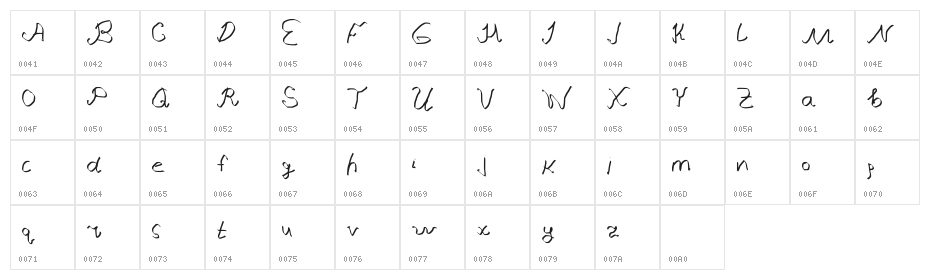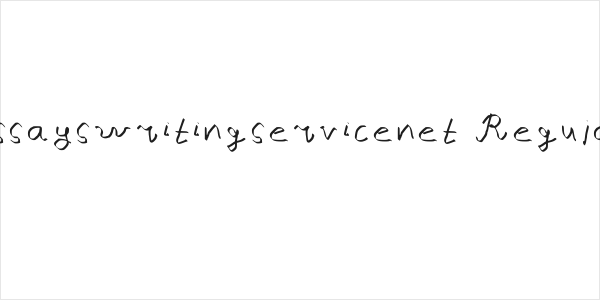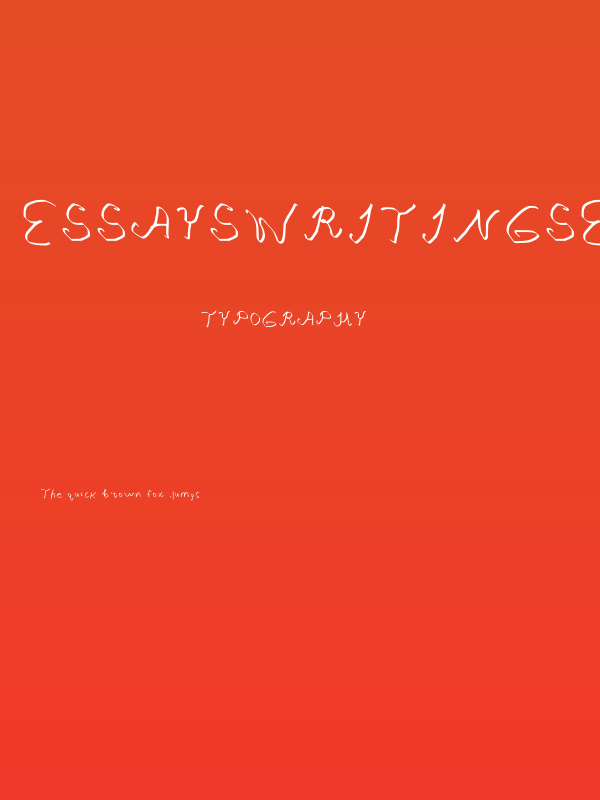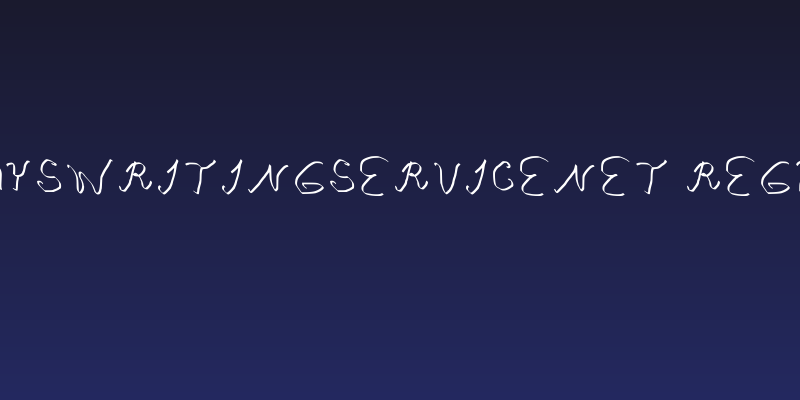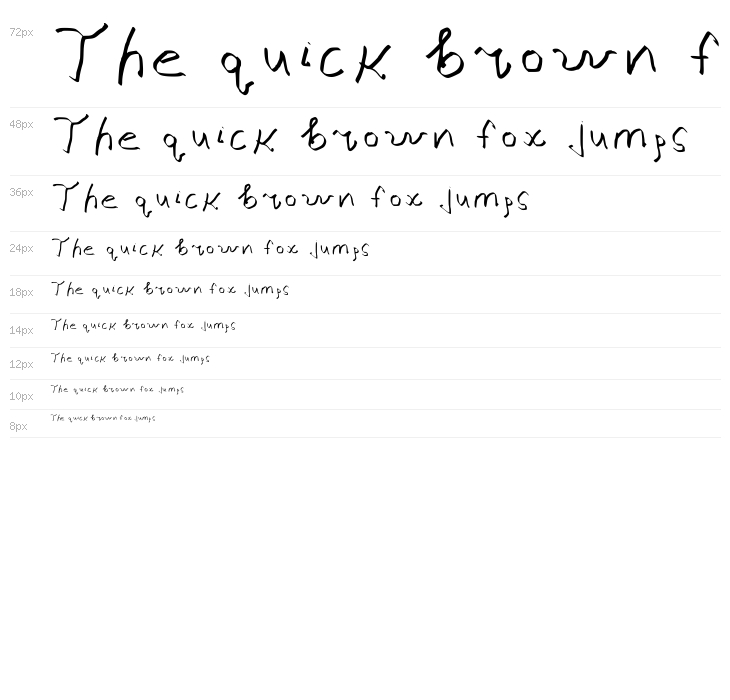
Essayswritingservicenet Regular Font
Essayswritingservicenet Regular Description
This font exhibits a unique and artistic style, characterized by its fluid and cursive-like strokes. The letters are crafted with a sense of movement and flair, giving them a handwritten appearance. The uppercase letters maintain a consistent height, while the lowercase letters vary slightly in size, adding to the organic feel. The strokes are uneven, with some letters featuring thicker lines, creating a dynamic contrast. The overall design is playful yet sophisticated, making it suitable for creative and expressive projects.
| Proposed Projects | Ideal for invitations, greeting cards, artistic branding, and creative projects that require a personal touch. |